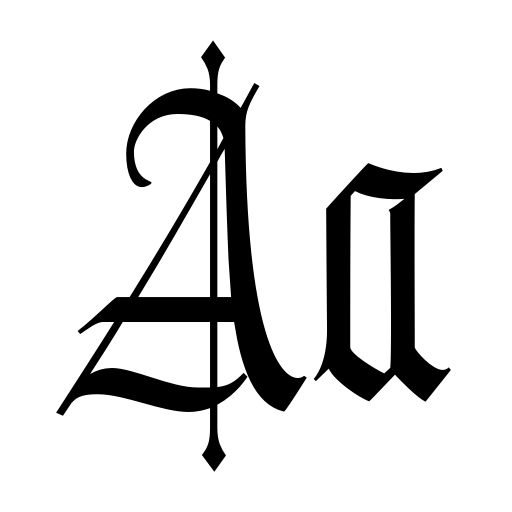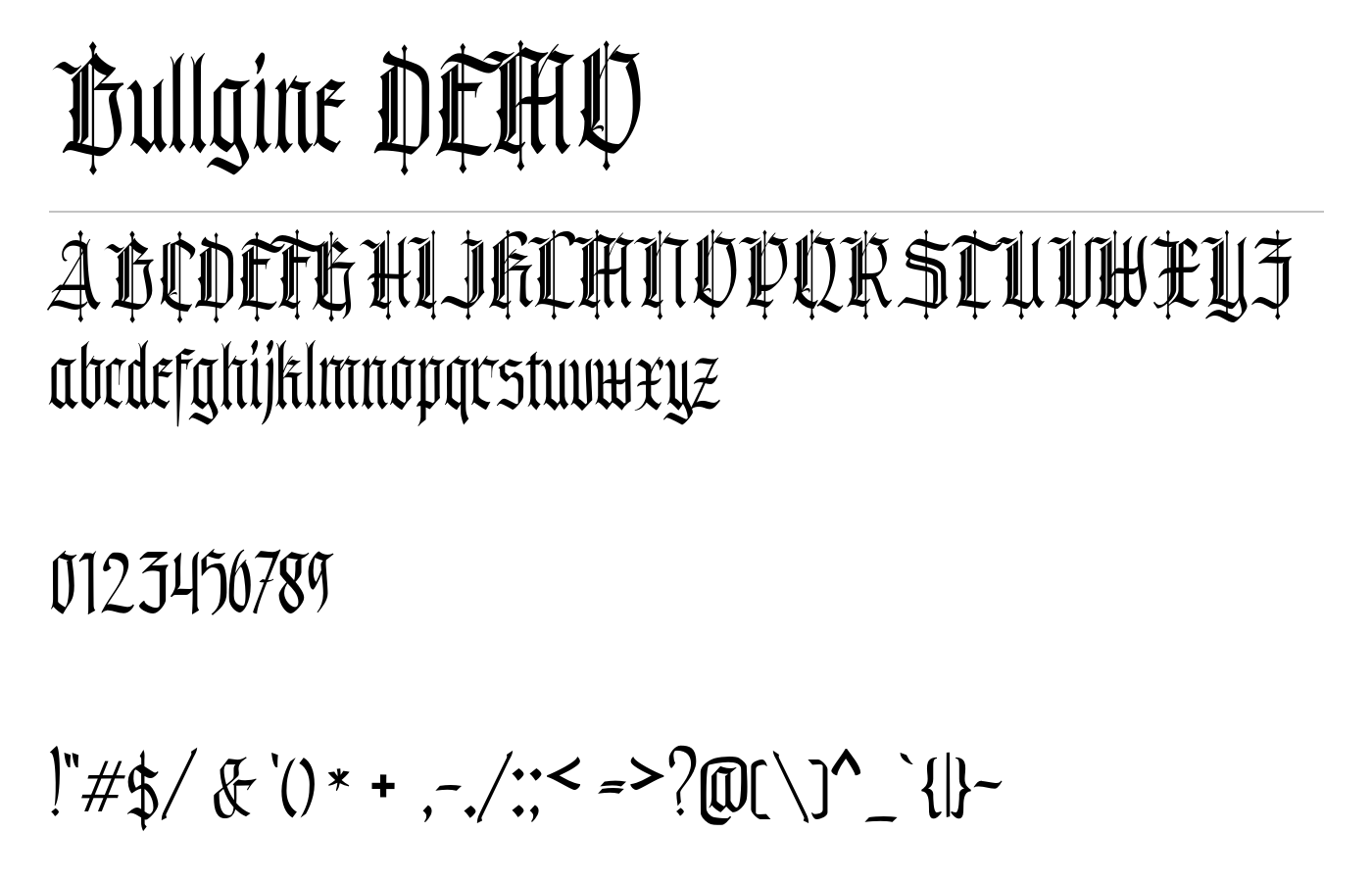
Bullgine DEMO is a bold, blackletter-style serif font with sharp, intricate strokes and tall, narrow letterforms that evoke a strong Gothic, medieval feel. Its dramatic contrast and ornate details make it ideal for creating impactful headlines, logos, or branding with a vintage or rebellious edge, especially where a striking, historic aesthetic is desired. This font works best in display settings where its elaborate design can be appreciated, such as posters or fashion branding that seeks a dark, distinctive character.
Bullgine DEMO Font